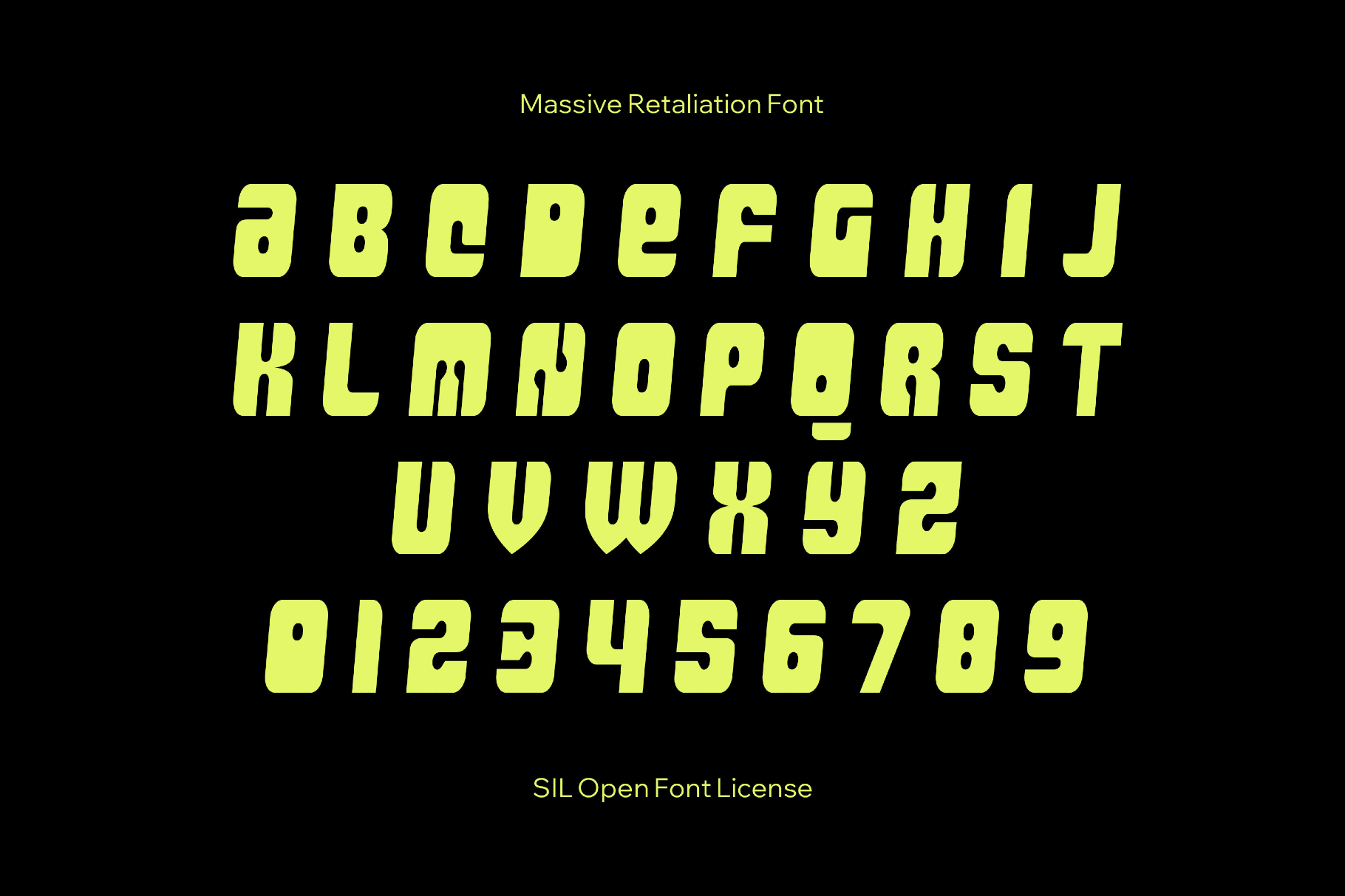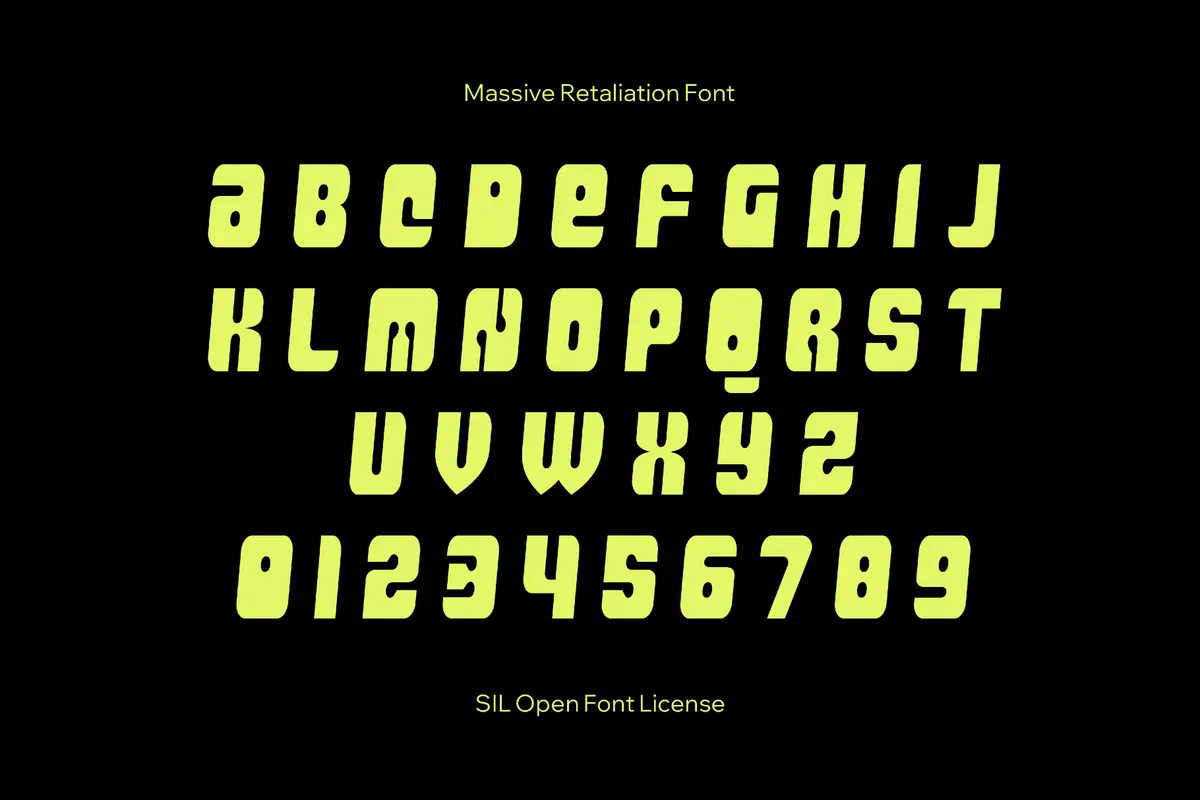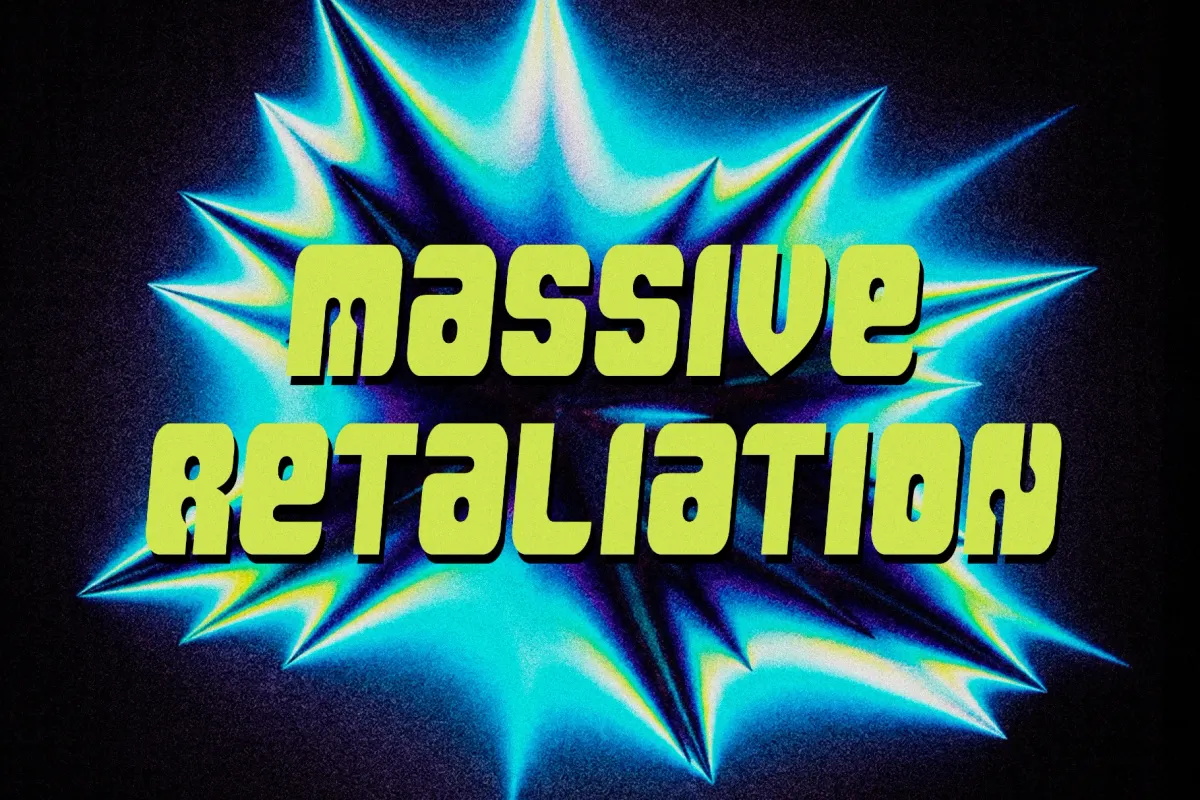
Massive Retaliation Font
Massive Retaliation
Massive Retaliation is a fat techno all-caps font with scorched edges and impact-heavy weight, reminiscent of something halfway between psychedelic record sleeves and futuristic UI labels. You can use it for album covers, gig posters, streetwear graphics, landing-page hero text, club and festival flyers, game title screens, horror promos, trailer typography, and bold packaging callouts.
- Only uppercase letters.
- International characters with multilingual support across extended Latin scripts.